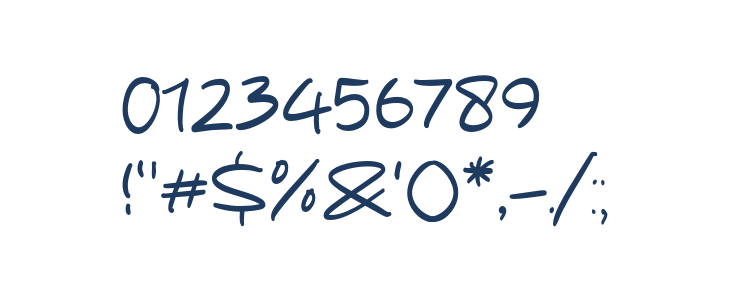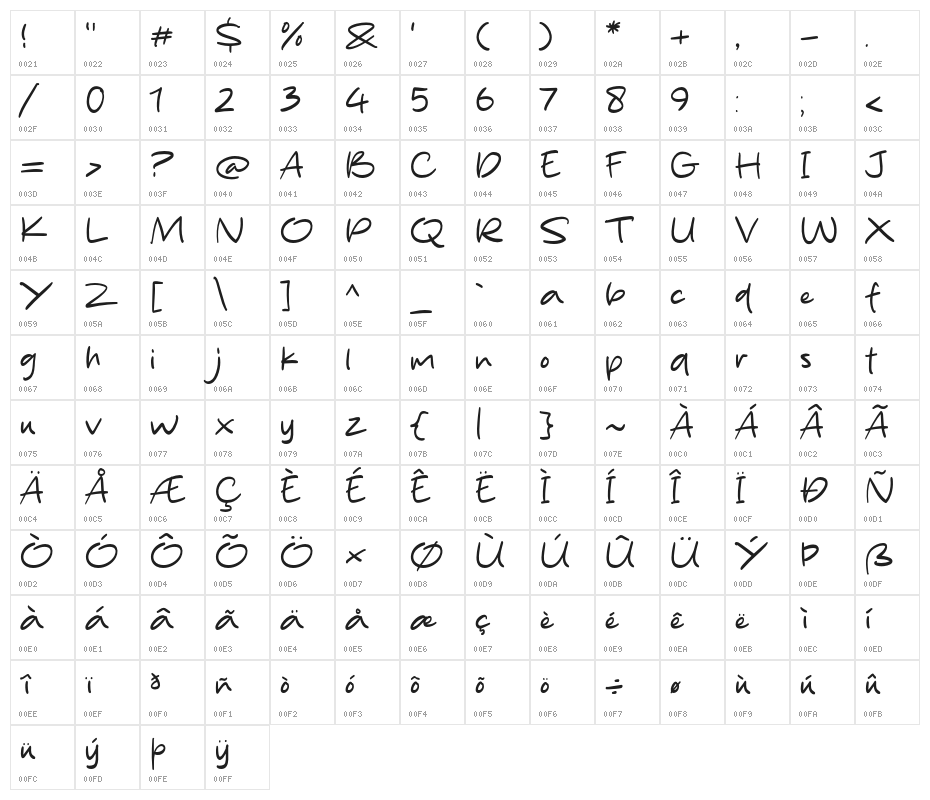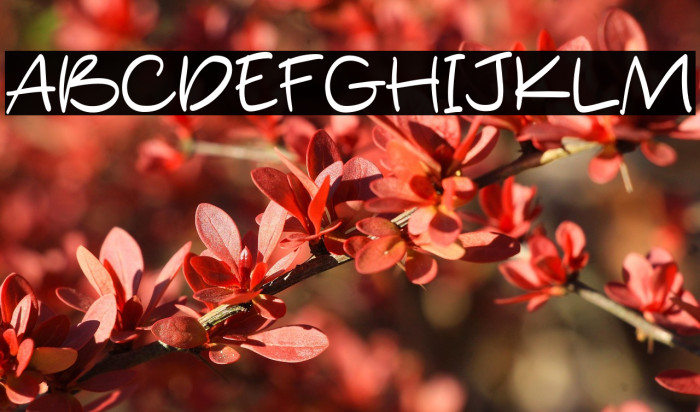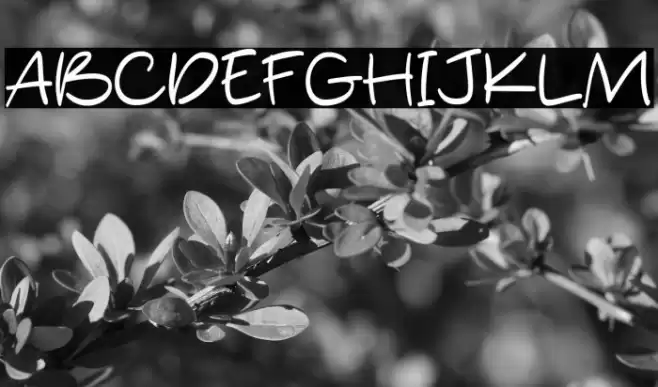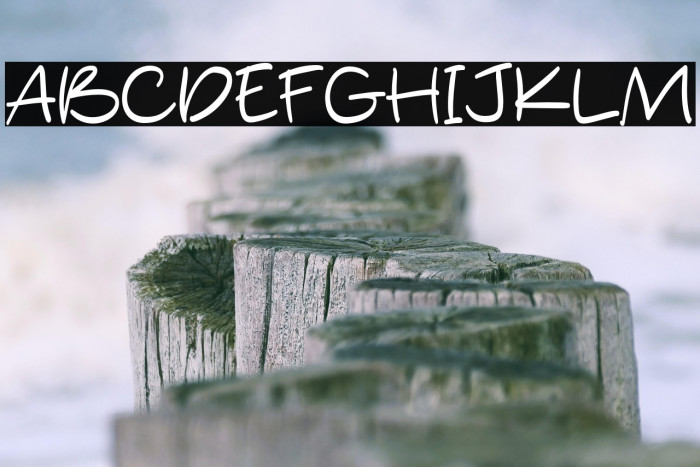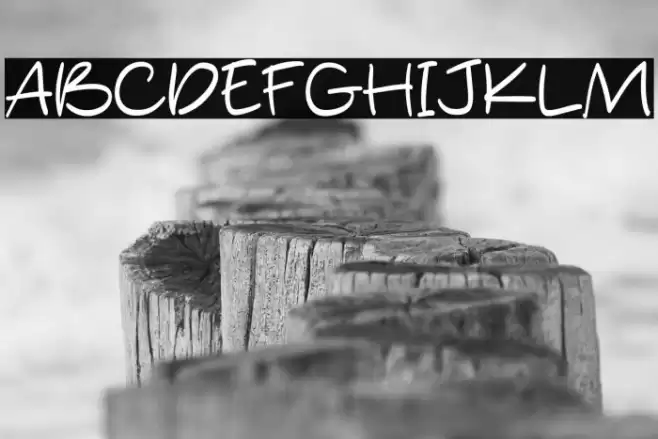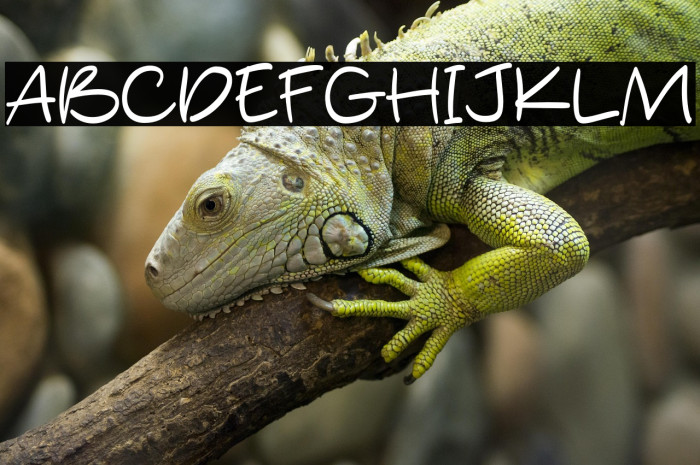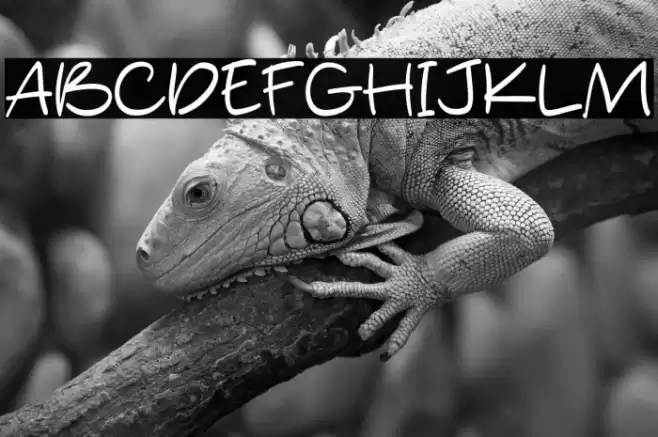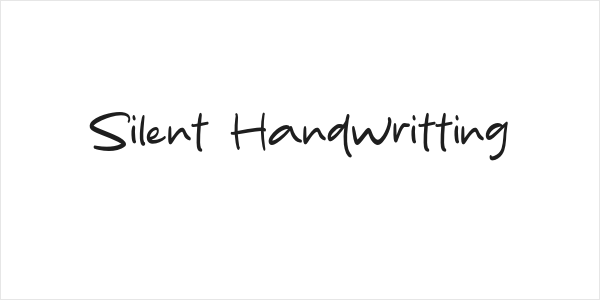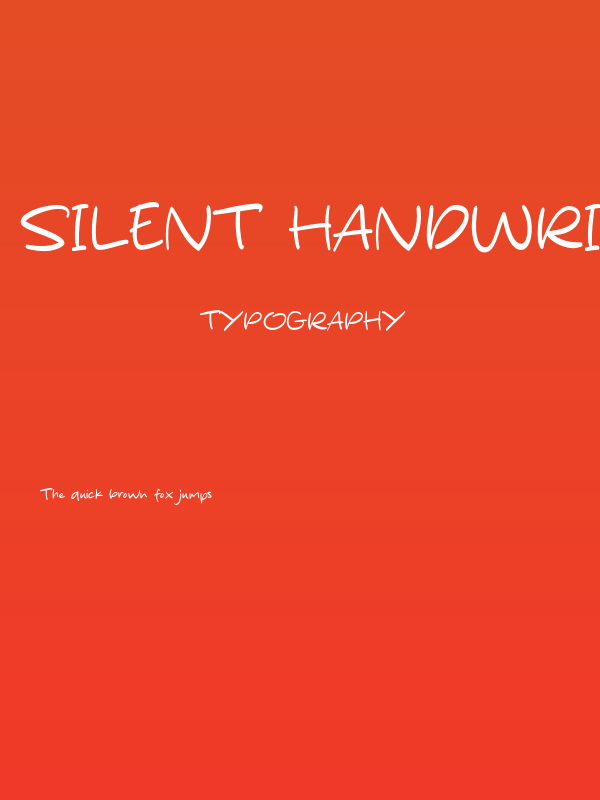
Silent Handwritting Font
Silent Handwritting Description
This font exudes a casual and approachable handwritten style, characterized by its fluid and slightly irregular strokes that mimic natural handwriting. The letters are well-rounded with a slight slant, giving it an informal yet legible appearance. The uppercase and lowercase letters maintain a consistent style, with the lowercase showing a bit more curvature and playfulness. The numerals are clear and distinct, matching the overall handwritten aesthetic. Special characters are seamlessly integrated, maintaining the same casual feel. This font is perfect for projects that require a personal touch or a relaxed vibe.
| Use Case | Logos, Headlines, Informal communications |
| Proposed Projects | Ideal for personal notes, invitations, greeting cards, and creative projects that require a personal touch. |